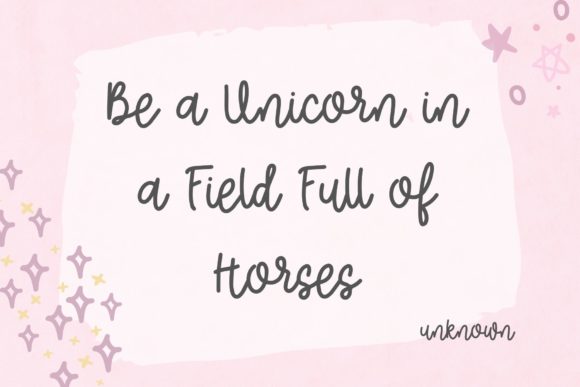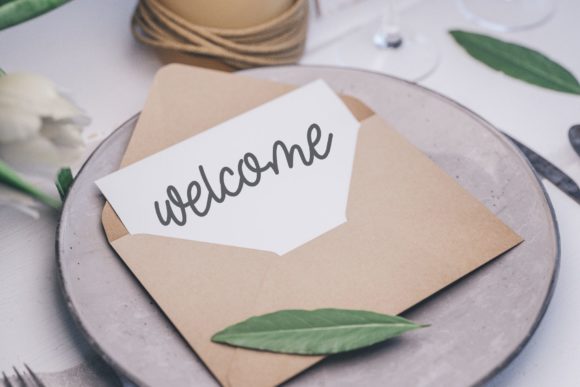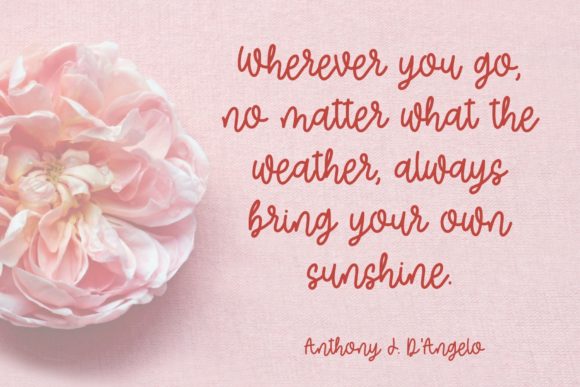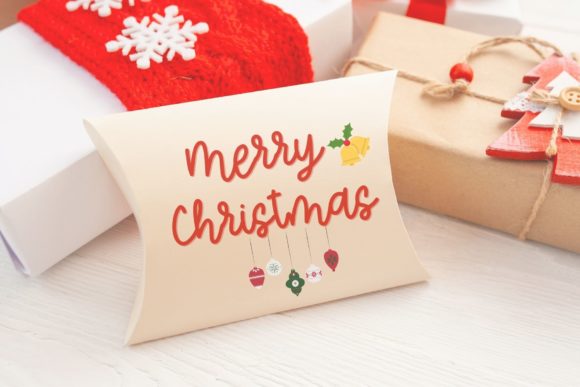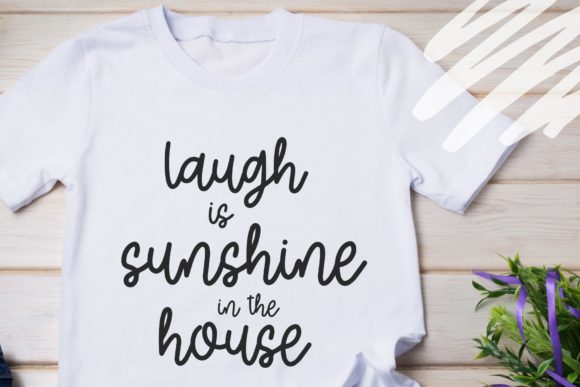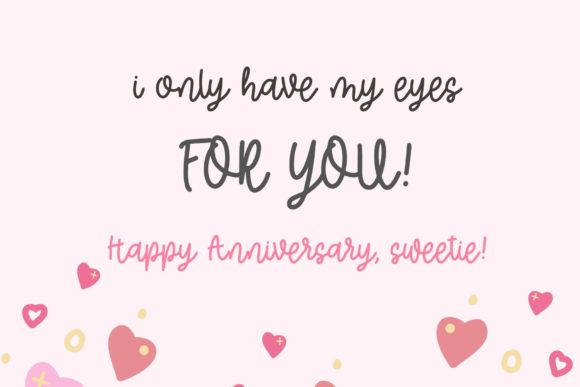
Unleash Your Creativity with Blink Magic Unicorn Font
Have you ever stared at a blank page, waiting for inspiration to strike? You know, that magical moment when the ideas start flowing and your creativity takes over? For designers, that moment is what makes all the hard work worth it. And with the right tools, it’s easier to capture that spark and turn it into something truly special.
Enter Blink Magic Unicorn Font – a sweet and friendly handwritten font that’s perfect for bringing your designs to life. Its natural and unique style makes it incredibly versatile, allowing you to experiment with a wide range of creative projects. Whether you’re working on a children’s book, a wedding invitation, or a social media campaign, Blink Magic Unicorn Font is the perfect companion to help you express your vision.
Blink Magic Unicorn Font Key Features
- Font Family: Blink Magic Unicorn, a magical and whimsical font
- Unique Characteristics: Features a dreamy, ethereal quality with intricate details and swashes, perfect for adding a touch of magic to designs
Blink Magic Unicorn Font Review
At first glance, the Blink Magic Unicorn Font seems like a whimsical and enchanting addition to any design project. ✨ The intricate details and curlicues add a touch of magic, perfect for fantasy or children’s content. The font is well-suited for headings and titles, adding a sense of wonder and excitement.
However, upon closer inspection, I notice a few limitations. ⚠️ The font’s bold and italic variations can be a bit inconsistent, with some characters appearing slightly off-kilter. Additionally, the font’s legibility can suffer at smaller text sizes, making it less suitable for body text.
Here are a few specific issues I’ve encountered:
- Inconsistent bold and italic variations
- Legibility suffers at smaller text sizes
- Slightly wonky character spacing
Overall, I’d say the Blink Magic Unicorn Font is a great addition to any design project that requires a touch of whimsy and magic. While it may not be suitable for all types of content, it’s a great choice for headings and titles. With a bit of tweaking and adjustment, it can add a unique and captivating element to your designs.
Some common use cases for the Blink Magic Unicorn Font include:
Magical and whimsical designs
Children’s book illustrations
Wedding invitations and decorations
Remember to use the font in moderation and balance it with other design elements to avoid overwhelming the viewer.
Alternatives to Blink Magic Unicorn Font
The Great Vibes font is a modern, elegant script font that works well for titles, headings, and body text. It has a whimsical feel, but is more refined than Blink Magic Unicorn Font. Use it for designs that require a touch of sophistication and playfulness. Great Vibes Font is more versatile and readable, making it a great choice for longer texts.
Crimson Text Font is a high-quality serif font that offers a classic, timeless look. It is more formal than Blink Magic Unicorn Font and has a more subtle elegance. Use it for designs that require a sense of sophistication and refinement, such as corporate materials, academic papers, or literature. Crimson Text Font is more readable and versatile than Blink Magic Unicorn Font.
Lobster Font is a fun, casual script font that is perfect for designs that require a playful touch. It is more informal than Blink Magic Unicorn Font and has a more relaxed feel. Use it for designs that require a sense of fun and approachability, such as social media graphics, advertisements, or blog posts. Lobster Font is more expressive and attention-grabbing than Blink Magic Unicorn Font.
Aleo Font is a beautiful, elegant script font that is perfect for designs that require a touch of sophistication and elegance. It is more refined than Blink Magic Unicorn Font and has a more classic feel. Use it for designs that require a sense of luxury and refinement, such as high-end branding, packaging, or advertising materials. Aleo Font is more versatile and readable than Blink Magic Unicorn Font.